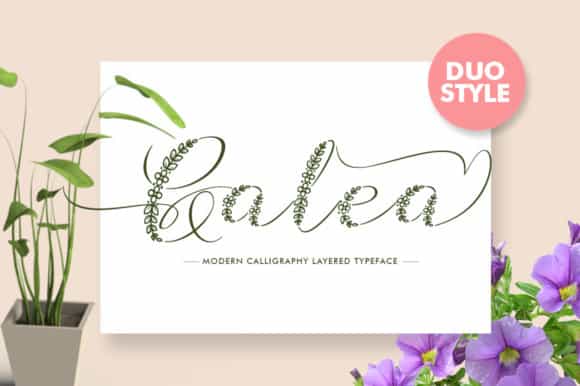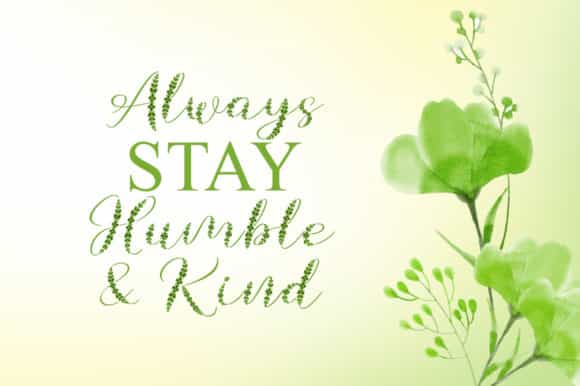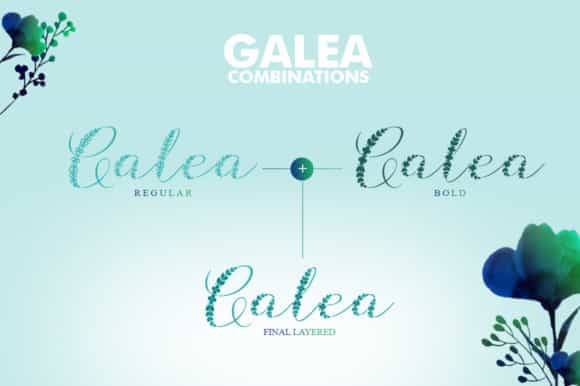
Galea is a new, modern, manual calligraphy font. Galea has two designs, regular & bold. It is the best for wedding invitations, events, cards, displays, logos, greeting cards, and many other things!